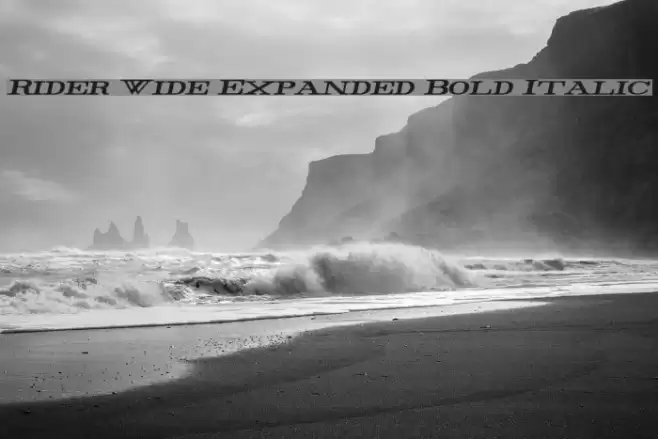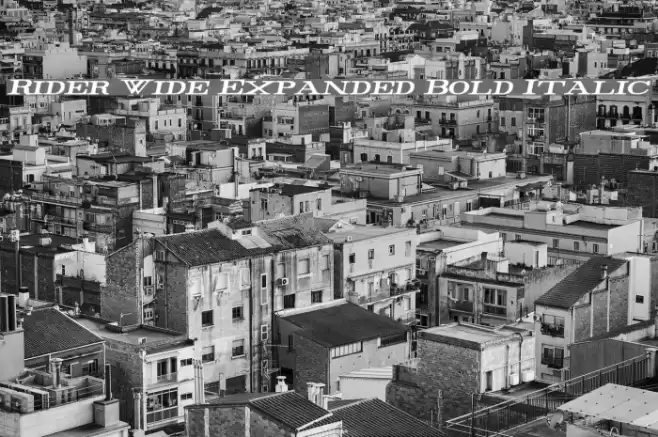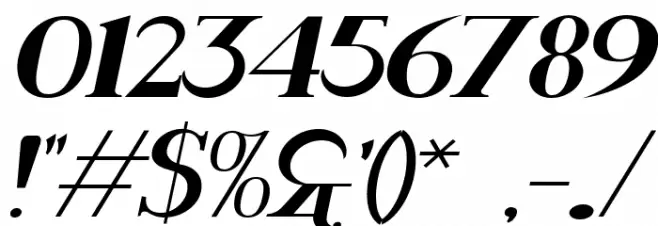
Rider Wide Expanded Bold Italic Font
Rider Wide Expanded Bold Italic Description
This font features a bold and italic style with a distinctly expanded width, giving it a commanding presence. The characters are elegantly slanted, adding a dynamic and energetic feel. The strokes are thick, providing high contrast and making each letter stand out prominently. The design is modern yet retains a classic touch, making it versatile for various applications. The spacing between characters is slightly wide, enhancing readability while maintaining a cohesive look. This font is well-suited for projects that require a strong and impactful visual statement.
Bold, italic, and expanded font with high contrast and dynamic style from Uncategorized fonts.
- Proposed Projects: Ideal for headlines, branding, advertising, and poster design.
- Width: Expanded
- Character Spacing: Wide